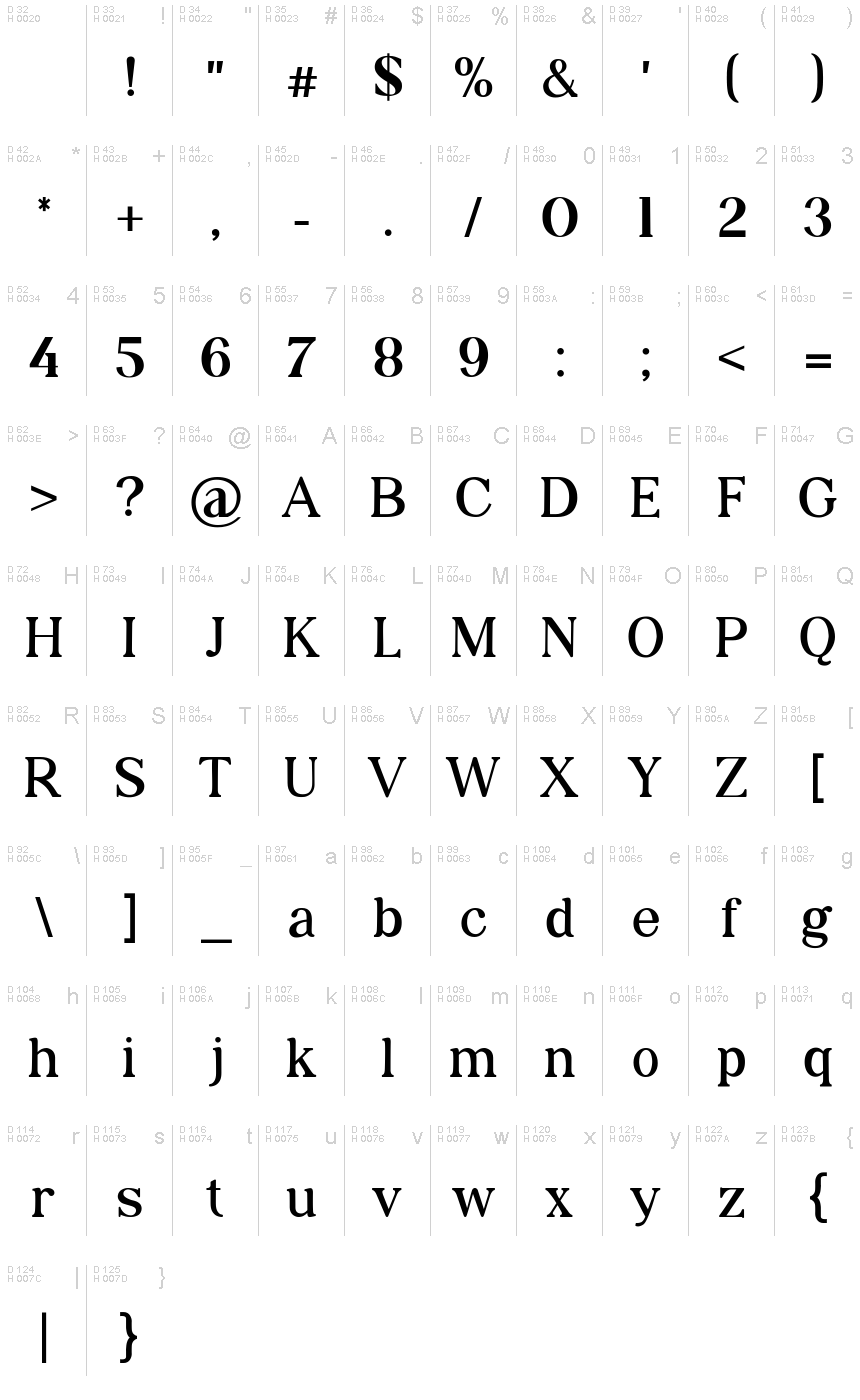
Catelyna
The Catelyna font by UI Creative is a captivating serif typeface that exudes a timeless elegance. Its smooth, refined strokes and graceful curves create a sophisticated, yet approachable aesthetic. The font's balanced proportions and subtle variations in thickness add depth and character, while the distinct serifs lend an air of traditional sophistication. Catelyna's versatile nature allows it to seamlessly transition between formal and informal settings, making it a versatile choice for a wide range of design applications.
The Catelyna font's versatility makes it an excellent choice for editorial, branding, and display design projects. Its clean, refined appearance lends itself well to high-end publications, while its accessibility also makes it suitable for web and marketing materials. The font's timeless elegance and legibility make it a reliable option for projects that demand a polished, professional look.